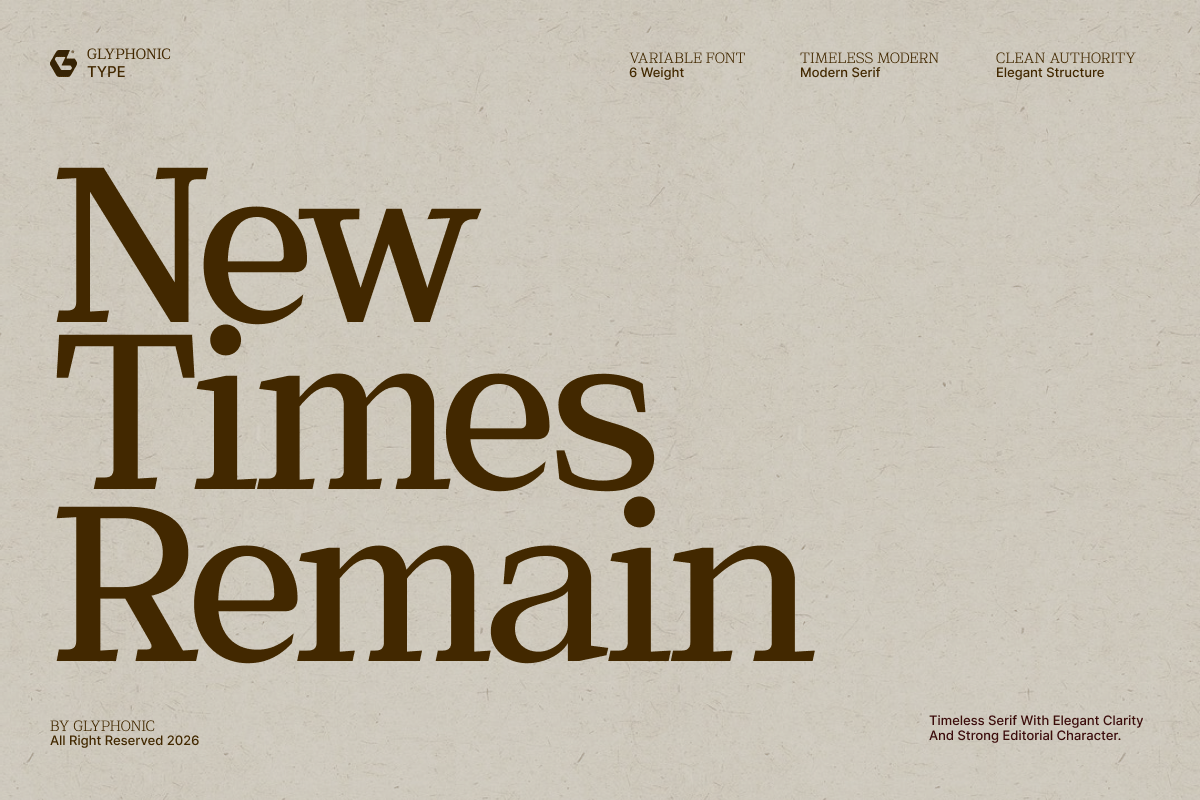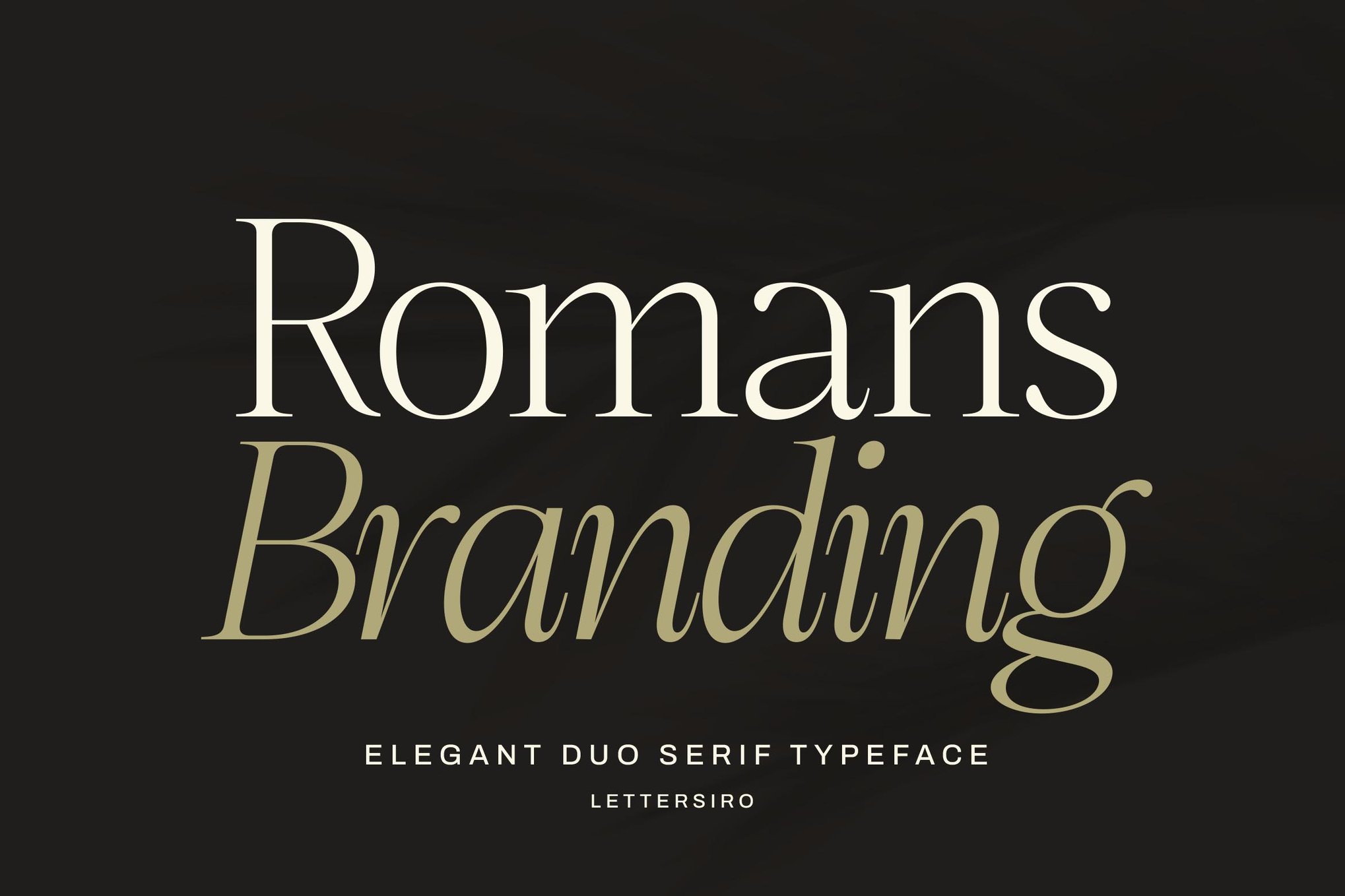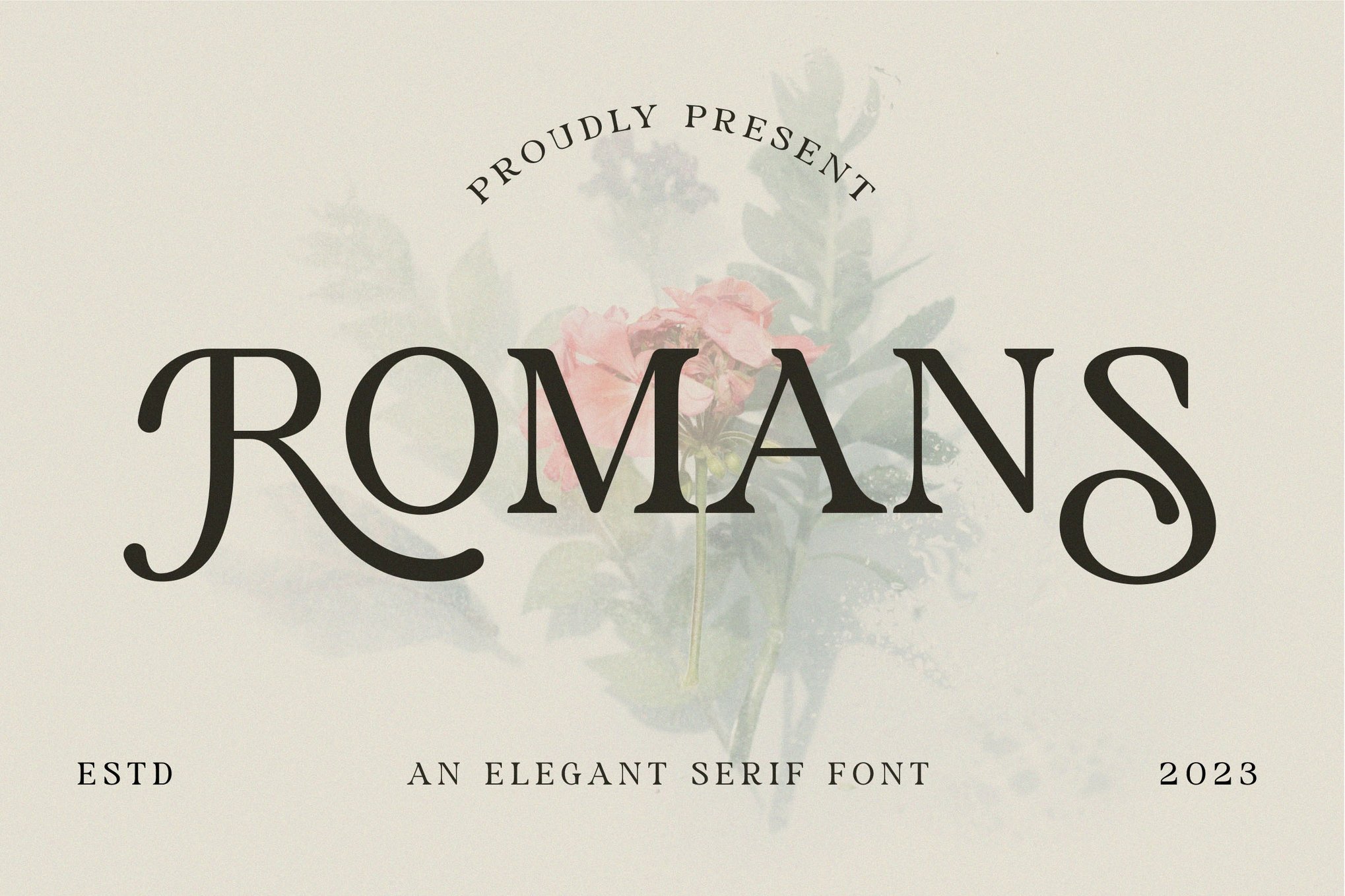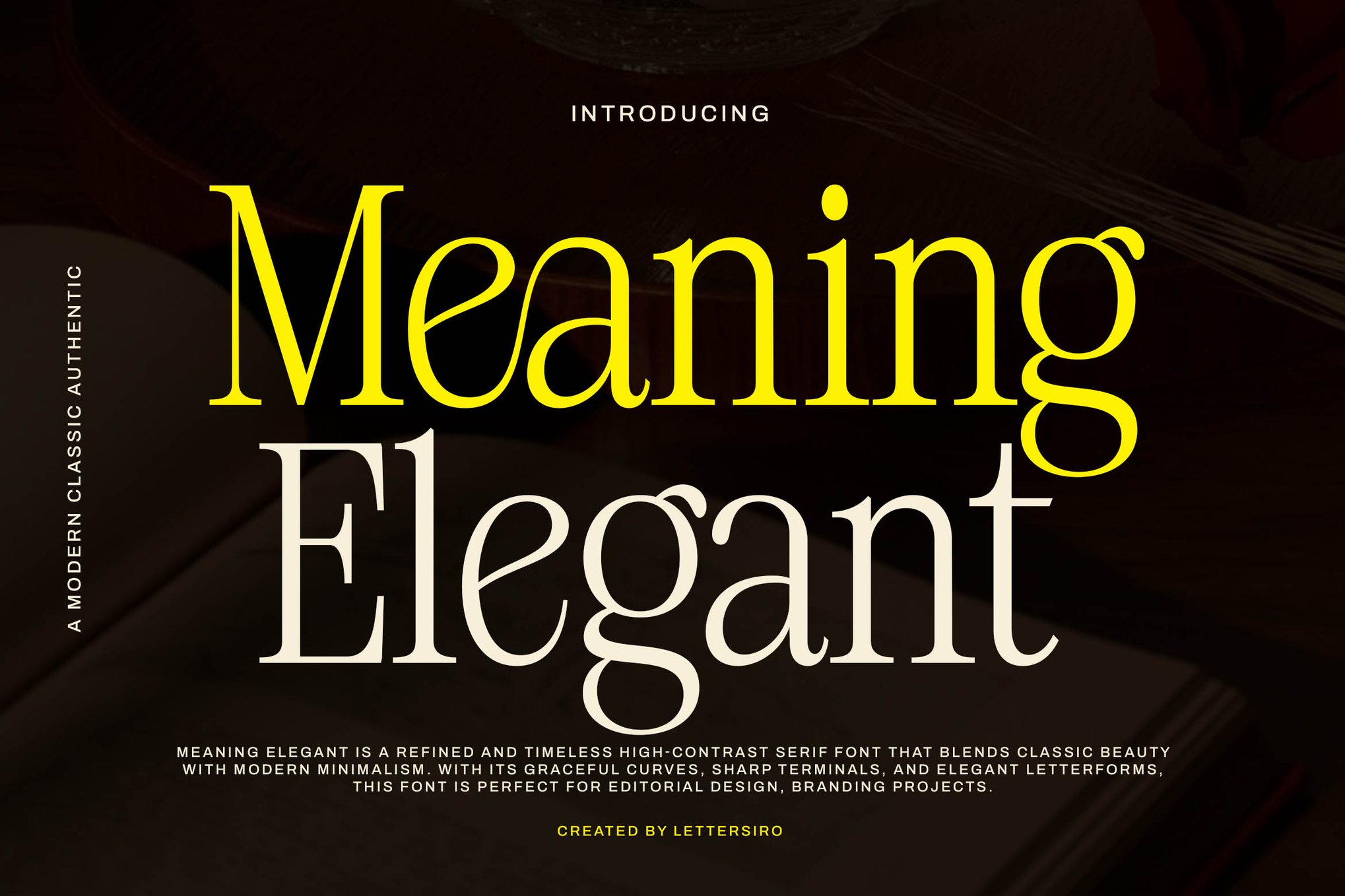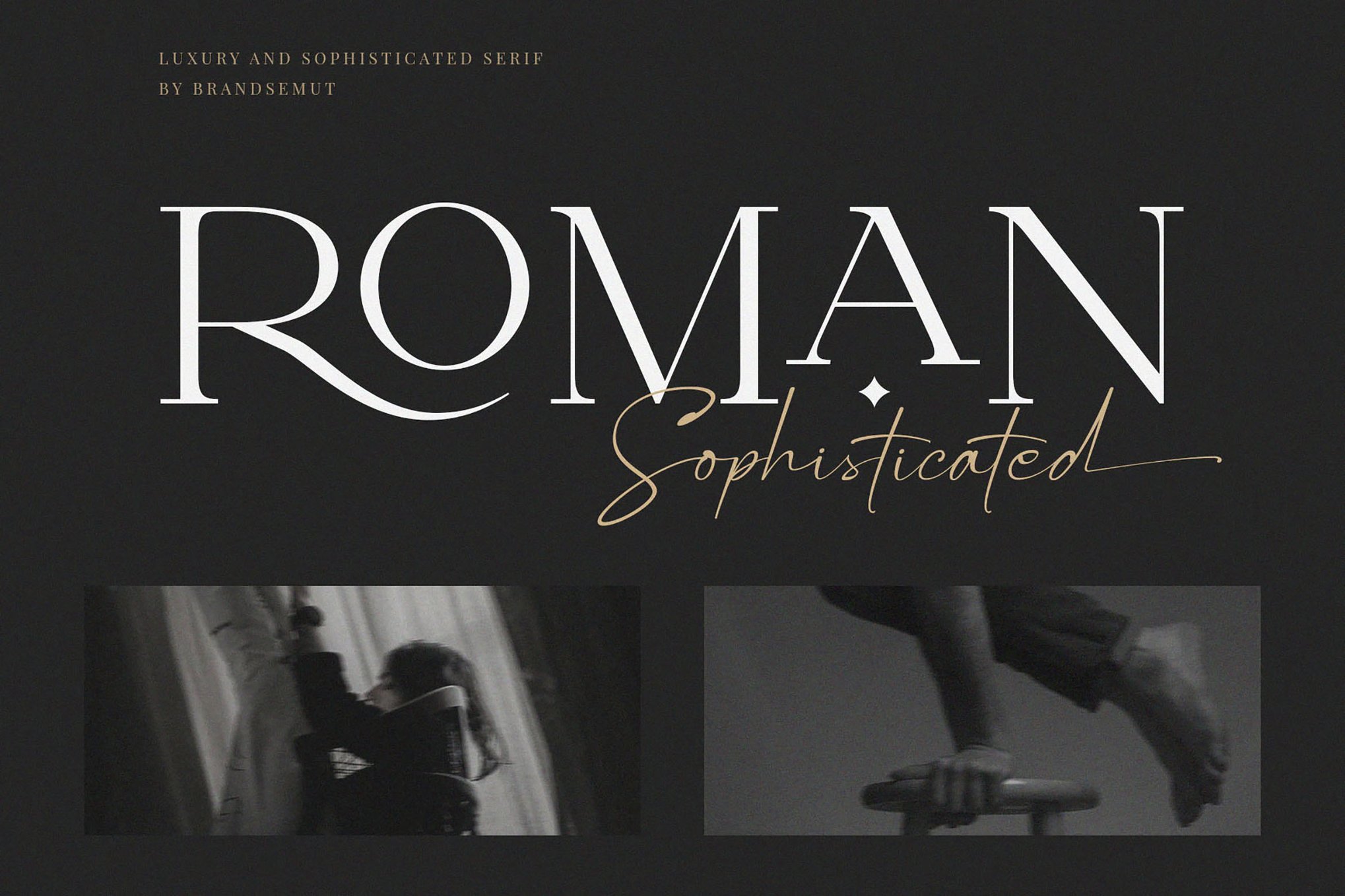
25+ Top Fonts Similar to Times New Roman (Free & Pro)
Times New Roman is one of the most iconic typefaces in existence that stood the test of time. However, it’s also one of the most expensive fonts out there.
Thankfully, there are plenty of amazing fonts similar to Times New Roman you can use instead. These Times New Roman alternatives are much cheaper and more flexible, allowing you to use them in any kind of project you want.
In this collection, you’ll find lots of fonts that look like Times New Roman. Some are even better looking than the original. And some are completely free to download. Go ahead and start downloading.
New Times Remain
New Times Remain is a timeless modern serif font that blends classic elegance with contemporary flair. Its refined proportions and graceful curves create a sophisticated look, perfect for editorial layouts, luxury branding, and more. With six variable weight options and multilingual support, it offers versatility for digital and print media.
Romans Branding
Romans Branding is an elegant serif duo font offering a blend of timeless sophistication and modern branding appeal. Featuring Regular and Italic Script Serif styles, it’s ideal for upscale projects like branding, logos, and editorial layouts. With high contrast details and multilingual support, this typeface ensures a premium, professional look for any design.
Romans
ROMANS is a modern serif font reminiscent of Times New Roman. With its minimalist elegance, ROMANS adds a touch of luxury and sophistication to any project, be it websites, logos, or wedding stationery. This carefully crafted typeface, featuring unique and classy capital letters, is available in OTF, TTF, and WOFF formats for versatile use.
Meaning Elegant
Meaning Elegant is a refined serif font inspired by early 20th-century typography. It features sharp contrasts and elegant curves, creating a timeless yet modern aesthetic. Ideal for logos, editorial titles, and packaging, it delivers style and clarity with multilingual support. Whether for bold headlines or classic text, Meaning Elegant ensures beauty and readability in every project.
Roman Sophisticated
Roman Sophisticated is a modern, luxury typeface perfect for giving your projects an elegant edge. With its clean lines and smooth curves, it’s ideal for headings, logos, branding, and more. Available in OTF, TTF, WOFF, and WOFF2 formats, Roman Sophisticated is a versatile choice for any creative endeavor.
Addington CF
Addington is a professional serif font family that comes with a letter design that closely resembles Times New Roman. It’s a perfect choice for all types of business and professional designs from logos to business cards, stationery designs, branding designs, and more. There are 7 different font weights included in this font with italic sets.
Anko
Anko is a modern serif font that look like Times New Roman. This font has a similar design for letters with slightly rounded edges. It actually looks even more stylish and professional than Times New Roman. You can choose from 8 different font weights along with italics. There are over 450 glyphs included in the font family.
Mauren
Mauren is another great Times New Roman alternative that features a classic serif letter design. This font features a professional design mixed with a calligraphy style. It also includes an italic version of the font along with more than 500 glyphs and multilingual support for 200 languages.
Agathias Stenchy
This font is not an exact copy of Times New Roman but it seems to put a stylish spin on the iconic typeface. Each letter of this font features a creative look with alternating thin and thick strokes. It will surely add a more stylish look for fashion, lifestyle, and feminine typography designs.
Wensley
Wensley is a serif font with a clean and clear letter design. It’s perfect for crafting big titles and headings for your design. The font comes in regular, light, and bold weights as well. It’s most suitable for crafting typography that looks like Times New Roman but with a different vibe.
That That New Roman
As you can guess from the name, this font takes its inspiration from Times New Roman as well as typography from the 90s-era. While its letters aren’t entirely similar to the popular typeface, it does have a close resemblance to it. The font is available in Roman and Italic versions.
Artifex CF
Artifex is a text-friendly serif font that also has a letter design similar to Times New Roman. This font, however, adds a creative touch that makes the letters look more unique with curved edges and uneven strokes. It’s great for designing typography with a professional vibe. The font includes 8 different weights and italics with alternates and ligatures.
Belma
Belma is a modern serif font that takes inspiration from Times New Roman. It also features a unique and modern look that will make your branding designs look more elegant and trendy. If you’re looking for a font similar to Times New Roman for your branding designs, give this font a try.
Distrampler
Times New Roman has a timeless look. But sometimes you’ll need a font that goes beyond that classic look to add a high-end and luxury look to your typography. Distrampler is a serif font that has similar traits. It features a luxury-style letter design with both uppercase and lowercase letters. It’s the perfect font for high-end businesses, luxury hotels, jewelry brands, and fashion brands.
Polluxie
Polluxie is another modern serif font you can use as an alternative to Times New Roman. This font has clean letters with sharp edges. And it also adds a stylistic touch to each character with a subtle wavy design. The font includes uppercase and lowercase letters with multilingual support.
Macaw
If you want to design a bold logo or title for your design that resembles the look of Times New Roman, this font is worth checking out. The font takes inspiration from classic Italian newspapers. It features a unique letter design that’s similar to Times New Roman but with its own creative spin. It comes in light, regular, medium, and bold weights as well as italics.
Catlyna
Catlyna is a beautiful serif font with an elegant design. It has many similarities to Times New Roman as well as other classic serif fonts. You can use it to design all types of professional designs from logos to greeting cards, business cards, letterheads, and much more. It includes both uppercase and lowercase letters.
Velomia Vanora
This font comes with a sleek and modern look that also resembles the same elegant look of Times New Roman. This font also has unique strokes that feature thin and thick designs. It’s especially perfect for modern and luxury brands for crafting attractive logos and packaging designs.
Butcherly
Despite the name this font actually has a very elegant-looking design. It has a design similar to Times New Roman featuring a uniquely stylish vibe. The font includes both uppercase and lowercase letters with multilingual support.
Aiguilette
Aiguilette is the perfect font to use for crafting typography with a feminine feel. It features stylish serif characters that take inspiration from Times New Roman. This font is also great for logos, signatures, and stationery designs.
Morty Old
Morty Old is another great Times New Roman alternative you can use to craft typography with a classic look. It features a set of professional-looking characters with a classic vibe. The font includes uppercase and lowercase letters as well.
Free Times New Roman Alternatives
If you’re working on a low-budget project, these free fonts will help you get by without breaking the bank.
Times Newer Roman
No, that’s not a typo. Times Newer Roman is a popular free alternative to Times New Roman. This font looks very similar to the original font and the only difference is that each character is 5-10% wider. And apparently, it can even help you save the word count on each page. The font is completely free to use with commercial projects.
Office Times
Office Times is another free font that comes with a letter design similar to Times New Roman. This font takes inspiration from 90s newspaper typography and classic fonts. You can use it for free with personal projects.
Sunday Romantic
This free font has a letter design similar to Times New Roman but with rounded edges. It has a beautiful and romantic look that will fit perfectly with greeting cards and wedding invitations. It’s free for personal use.
Fornire Light
Fornire Lite is a minimalist serif font with a professional letter design. This font looks a lot like Times New Roman and has its own unique stylish alternates too. It’s available free for desktop commercial use.
areminiscentsmile
This free font comes with an elegant look that also takes inspiration from classic serif fonts like Times New Roman. It features a set of classy characters with wavy designs. The font is free to use with commercial projects.
New York
A bold and stylish serif font featuring a modern design. This font also has uneven strokes that will add a high-end and luxurious vibe to your typography. You can use it for free with personal projects.
Harmony
Harmony is a modern serif font with a set of beautiful characters. It features clean letters with sharp edges that will add a bold look to your designs. The font is free to use with your personal projects.